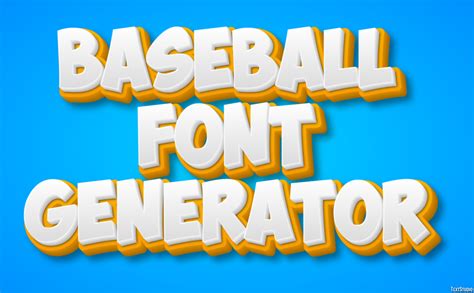
PSEI Baseball Font Generator: Create Unique Text Styles
Hey there, font enthusiasts! Are you looking to give your text a sporty, vintage, or baseball-inspired vibe? Look no further! With a PSEI baseball font generator , you can easily create eye-catching text styles that stand out. In this article, we’ll dive deep into what a PSEI baseball font generator is, how it works, and how you can use it to level up your design game. So, grab your creative cap, and let’s get started!
What is a PSEI Baseball Font Generator?
So, what exactly is a PSEI baseball font generator? Well, in simple terms, it’s a tool that allows you to create text in a style that resembles the fonts commonly used on baseball jerseys, team logos, and other baseball-related designs. These fonts usually feature a bold, slightly curved, and often italicized look, giving them a dynamic and energetic feel. A PSEI baseball font generator takes this concept and makes it accessible to everyone, regardless of their design skills. You don’t need to be a professional graphic designer to create stunning baseball-style text! These generators often provide a user-friendly interface where you can type in your desired text, choose from various font options, customize colors, and even add effects like outlines or shadows. The best part? Many of these generators are available online for free, making them a fantastic resource for personal and commercial projects alike. Whether you’re designing a logo for your local baseball team, creating social media graphics for a sports event, or simply want to add a touch of sporty flair to your personal projects, a PSEI baseball font generator can be your go-to tool. With a PSEI baseball font generator you can easily capture the essence of the game and infuse it into your designs with just a few clicks. Forget about complex design software or spending hours tweaking fonts manually; these generators simplify the process, allowing you to focus on your creative vision. From choosing the perfect font to experimenting with different color combinations, the possibilities are endless. Plus, with the ability to download your creations in various formats, you can seamlessly integrate them into your existing projects. So why settle for ordinary text when you can bring the excitement of the ballpark to your designs? Explore the world of PSEI baseball font generators and unlock a whole new level of creativity.
How Does a PSEI Baseball Font Generator Work?
Alright, let’s break down how a PSEI baseball font generator actually works its magic. Most of these generators operate on a pretty straightforward principle: they use pre-designed font templates that mimic the classic baseball jersey and logo styles. These templates are essentially digital versions of the fonts you’d see on a baseball team’s apparel. When you enter your text into the generator, it maps each character to the corresponding glyph in the selected font template. This means that each letter, number, and symbol is automatically styled to match the baseball font’s unique characteristics , such as its curvature, boldness, and any special effects like serifs or shadows. But the magic doesn’t stop there! Most PSEI baseball font generators offer a range of customization options that allow you to fine-tune the appearance of your text. You can usually adjust the font size, color, and spacing to achieve the desired look. Some generators even let you add outlines, shadows, or other special effects to further enhance the visual appeal of your text. The underlying technology behind these generators can vary, but many of them use a combination of HTML, CSS, and JavaScript to create a dynamic and interactive user interface. This allows you to preview your text in real-time as you make changes to the settings , giving you instant feedback on the final result. Once you’re satisfied with your design, the generator typically provides options to download the text as an image file (such as PNG or JPG) or as a vector graphic (such as SVG). Image files are great for displaying your text on websites or social media, while vector graphics are ideal for resizing the text without losing quality, making them perfect for print materials or logos. In essence, a PSEI baseball font generator acts as a bridge between your creative ideas and the technical aspects of font design. It takes the complexity out of the process, allowing you to focus on expressing your unique style and creating visually stunning text that captures the spirit of baseball.
Key Features to Look For
When choosing a PSEI baseball font generator , keep an eye out for these key features to ensure you get the best possible experience:
• Font Variety: The more font options, the better! Look for a generator that offers a diverse selection of baseball-style fonts, ranging from classic to modern interpretations. This will give you more flexibility in finding the perfect font to match your design.
• Customization Options: A good generator should allow you to customize various aspects of your text, such as font size, color, spacing, and alignment. The ability to add outlines, shadows, or other special effects is also a plus.
• User-Friendly Interface: Nobody wants to struggle with a clunky or confusing interface. Opt for a generator with a clean, intuitive design that’s easy to navigate, even if you’re not a tech whiz. A user-friendly interface is key to a seamless and enjoyable design experience.
• Real-Time Preview: Being able to see your changes in real-time is essential for making informed design decisions. A generator with a real-time preview feature allows you to experiment with different settings and instantly see the results, saving you time and frustration.
• Download Options: Make sure the generator offers a variety of download options to suit your needs. The ability to download your text as an image file (such as PNG or JPG) or as a vector graphic (such as SVG) is crucial for integrating your designs into different projects.
• Free vs. Paid: While there are many excellent free PSEI baseball font generators available, some paid options may offer additional features, such as more font choices, advanced customization options, or higher-quality output. Consider your budget and design needs when deciding between a free and paid generator.
• Mobile Compatibility: If you like to design on the go, look for a generator that’s compatible with mobile devices. This will allow you to create baseball-style text directly from your smartphone or tablet.
• Customer Support: If you encounter any issues or have questions about the generator, it’s helpful to have access to customer support. Check if the generator offers documentation, tutorials, or a contact form for assistance.
By considering these key features, you can choose a PSEI baseball font generator that meets your specific needs and helps you create stunning text designs with ease.
Step-by-Step Guide: Using a PSEI Baseball Font Generator
Ready to create some awesome baseball-style text? Here’s a step-by-step guide to using a PSEI baseball font generator :
1. Find a Generator: Start by searching online for a PSEI baseball font generator. There are many free options available, so take some time to explore different generators and find one that suits your needs.
2. Enter Your Text: Once you’ve found a generator, locate the text input field and type in the text you want to style. This could be anything from a team name to a slogan or a personal message.
3. Choose a Font: Browse through the available font options and select the one that best matches your desired look. Consider the font’s style, boldness, and overall aesthetic.
4. Customize Your Text: Use the generator’s customization options to fine-tune the appearance of your text. Adjust the font size, color, spacing, and alignment to achieve the desired effect. Experiment with adding outlines, shadows, or other special effects to further enhance the visual appeal.
5. Preview Your Design: Take advantage of the generator’s real-time preview feature to see how your text looks as you make changes. This will help you make informed design decisions and ensure that you’re happy with the final result.
6. Download Your Text: Once you’re satisfied with your design, choose a download option and save the text to your computer or device. Select the file format that best suits your needs, such as PNG, JPG, or SVG.
7. Use Your Text: Now that you have your baseball-style text, you can use it in a variety of projects. Incorporate it into logos, social media graphics, websites, print materials, or any other design where you want to add a sporty or vintage touch.
Remember to experiment with different fonts, colors, and effects to create unique and eye-catching designs. With a little practice, you’ll be a PSEI baseball font generator master in no time!
Tips for Creating Stunning Baseball-Style Text
Want to take your baseball-style text to the next level? Here are some tips for creating truly stunning designs:
• Choose the Right Font: The font is the foundation of your design, so choose wisely. Consider the overall tone and style you’re trying to achieve and select a font that complements it. Experiment with different fonts to see what works best for your text.
• Pay Attention to Color: Color can have a big impact on the visual appeal of your text. Use colors that are associated with baseball, such as red, white, blue, and black. Consider using contrasting colors to make your text stand out.
• Add Depth with Shadows and Outlines: Shadows and outlines can add depth and dimension to your text, making it more visually interesting. Experiment with different shadow and outline styles to see what looks best.
• Use Consistent Spacing: Consistent spacing between letters and words is crucial for readability. Adjust the spacing as needed to ensure that your text is easy to read.
• Consider the Context: Think about where your text will be used and design it accordingly. For example, if you’re creating a logo, you’ll want to use a font and style that are easily recognizable and scalable.
• Don’t Be Afraid to Experiment: The best way to learn is by experimenting. Try different combinations of fonts, colors, and effects to see what works best for you. Don’t be afraid to break the rules and create something truly unique.
• Get Inspired: Look at examples of baseball-style text in logos, jerseys, and other designs. Use these examples as inspiration for your own creations.
By following these tips, you can create baseball-style text that is both visually appealing and effective in conveying your message.
Where to Use Your Baseball-Style Text
Okay, you’ve created some awesome baseball-style text – now what? Here are just a few ideas of where you can use your creations:
• Logos: Create a unique and memorable logo for your baseball team, sports club, or business.
• Jerseys: Design custom jerseys with eye-catching team names and numbers.
• Social Media Graphics: Create engaging social media posts for sports events, team announcements, or fan promotions.
• Websites: Add a sporty touch to your website with baseball-style headers, banners, and call-to-action buttons.
• Print Materials: Design flyers, posters, brochures, and other print materials for sports events or team promotions.
• Invitations: Create unique invitations for baseball-themed parties or events.
• T-Shirts: Design custom t-shirts with your favorite baseball slogans or team logos.
• Gifts: Personalize gifts for baseball fans with their name or favorite player’s number in a baseball-style font.
The possibilities are endless! Let your creativity run wild and find new and exciting ways to use your baseball-style text.
So there you have it, guys! A comprehensive guide to using a PSEI baseball font generator . With the right tool and a little creativity, you can easily create stunning text styles that capture the spirit of baseball. Whether you’re designing a logo, creating social media graphics, or simply want to add a sporty touch to your personal projects, a PSEI baseball font generator can be your go-to resource. So, grab your virtual bat and ball, and start creating some amazing baseball-style text today! Remember to experiment with different fonts, colors, and effects to find the perfect look for your designs. And most importantly, have fun! With a PSEI baseball font generator, the possibilities are endless, so let your imagination run wild and create something truly special.